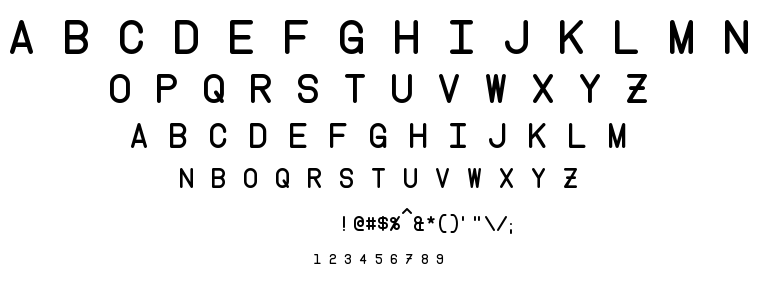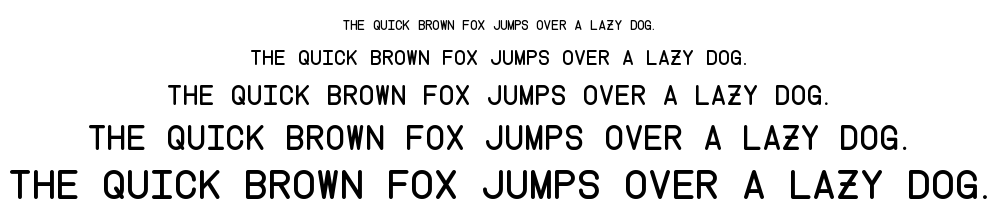
This font is a simple ‘engineering-style’ font, monospaced, similar to ones found in technical journals and other ‘official documents’ from the pulp era.